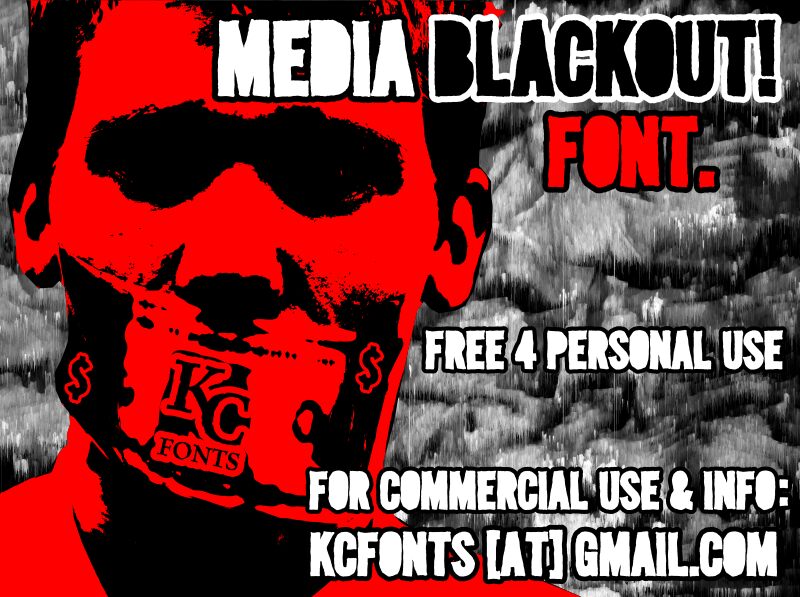
MediaBlackout by Kevin Christopher of KC Fonts is a free eroded display font with hulking, tightly packed capitals. Its blunt, swollen shapes resemble roughly cut paper or heavily inked printing. The silhouettes stay forceful and compact.
Its raw punk-poster character makes it a natural fit for concert posters and album covers. Streetwear graphics can use the dense lettering as a rough logo element, with the irregular cuts keeping the result from feeling corporate. In publishing, it is especially suited to magazine cover lines and section openers about underground music, skate culture, or independent art.